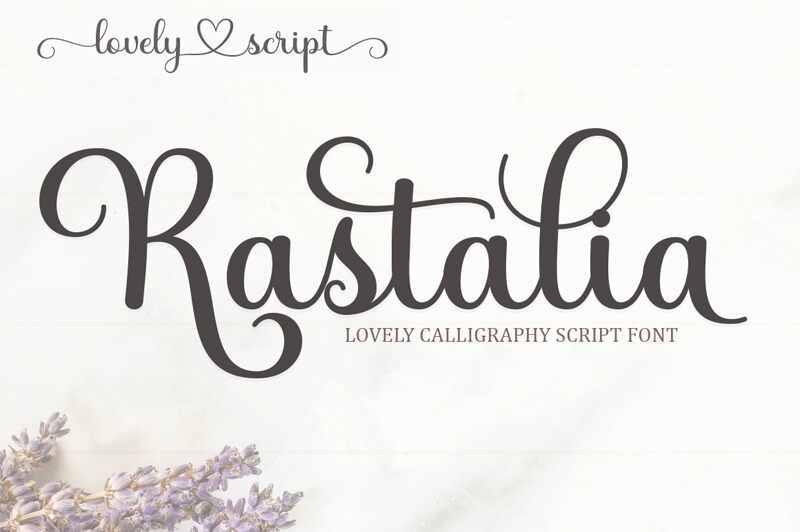
Rastalia, the elegant calligraphy font designed by Romi Rahmadi, is the perfect addition to any project looking to add a touch of sophistication and grace. Its semi-light weight makes it ideal for titles, headings, and branding materials that require a delicate yet impactful look. Rastalia's fluid strokes and intricate details create a timeless feel that can be used in everything from wedding invitations to product packaging. Whether you're looking to create an upscale menu or design an eye-catching logo, Rastalia's versatility makes it a must-have for any designer or creative professional.